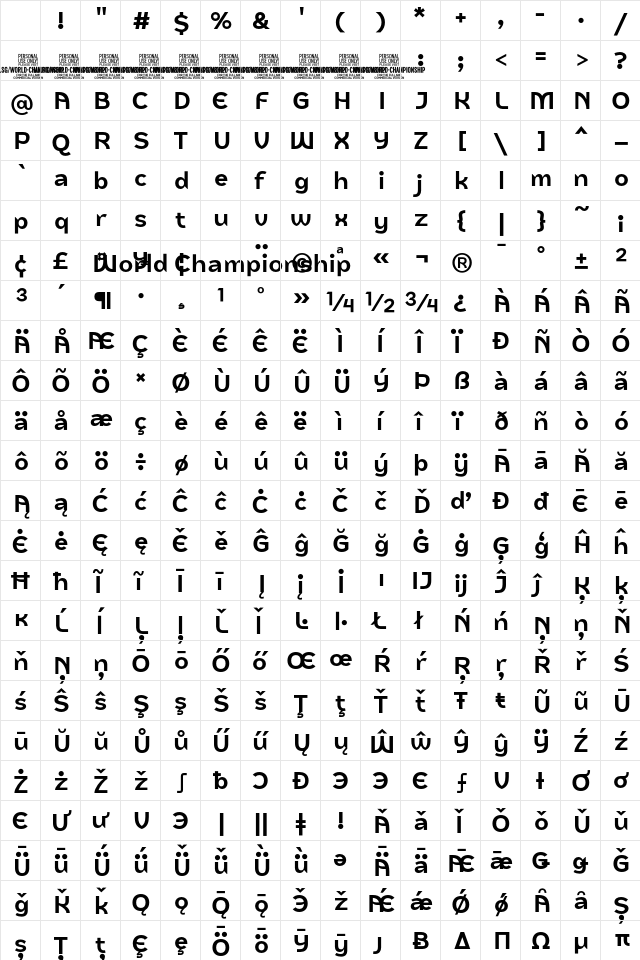
Complete World Championship PERSONAL USE Regular glyph index. Displaying only characters natively supported by World Championship PERSONAL USE Regular font.
World Championship PERSONAL USE is a composed and adaptable typeface that performs quietly and consistently across a wide range of design contexts.